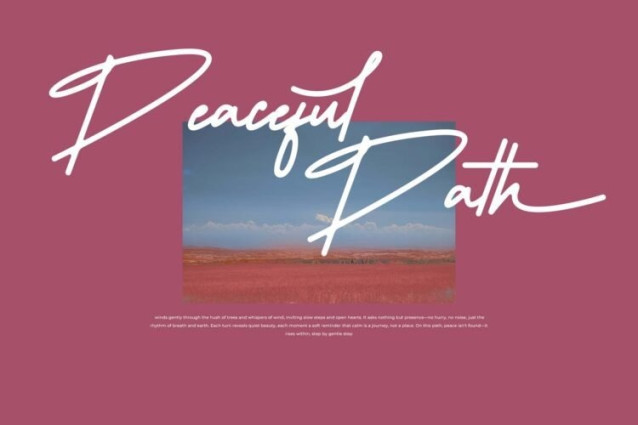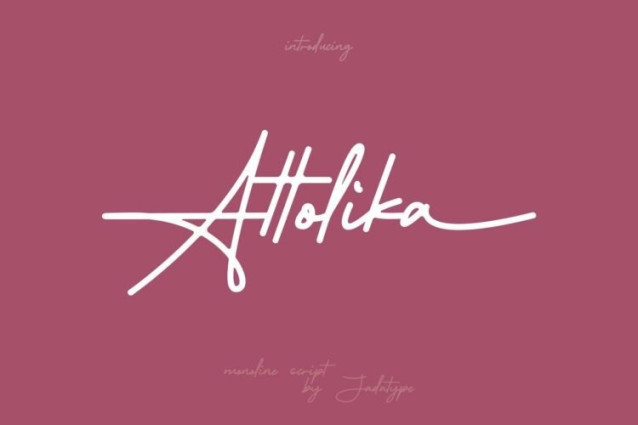
Attolika Monoline Script Font
Attolika Monoline Script Font is a font with a stylish monoline-signature style. suitable for branding, social media, products, advertisement, and so on. contains standard English letters, numbers, punctuation, and several accents that support multilingualism.